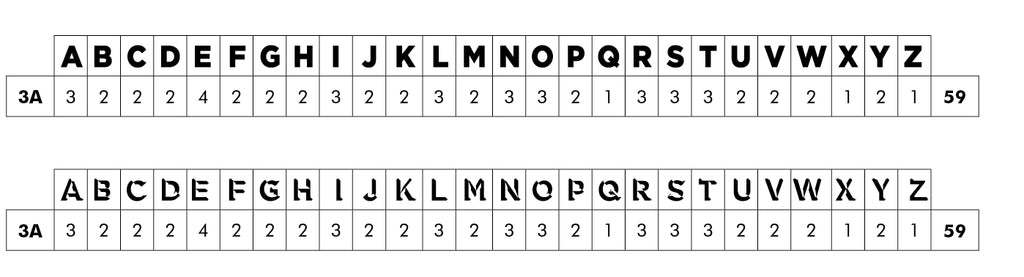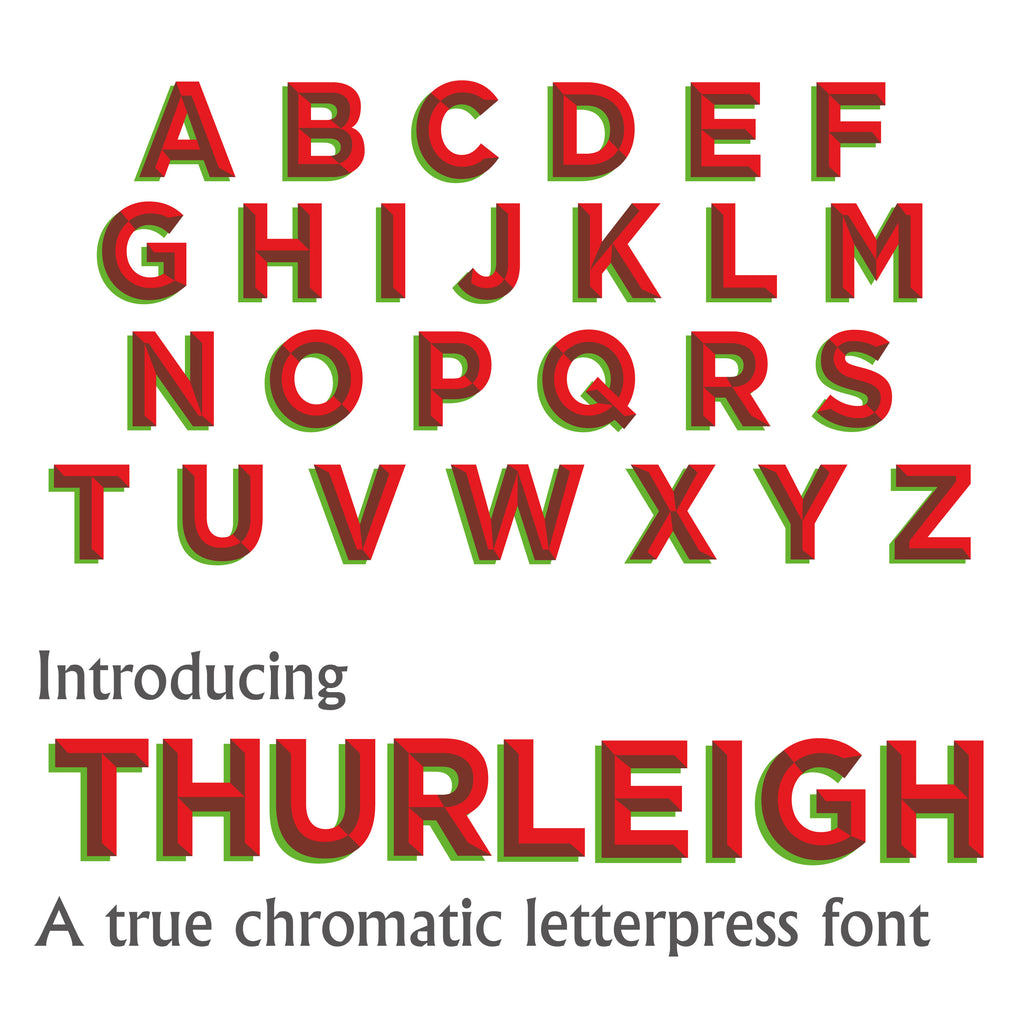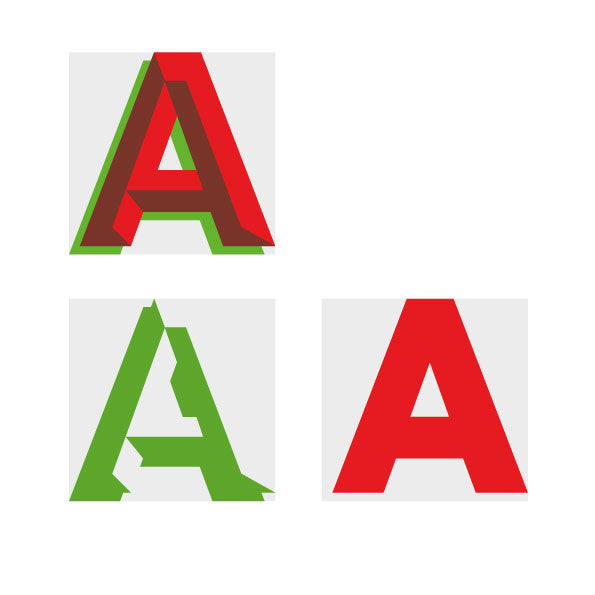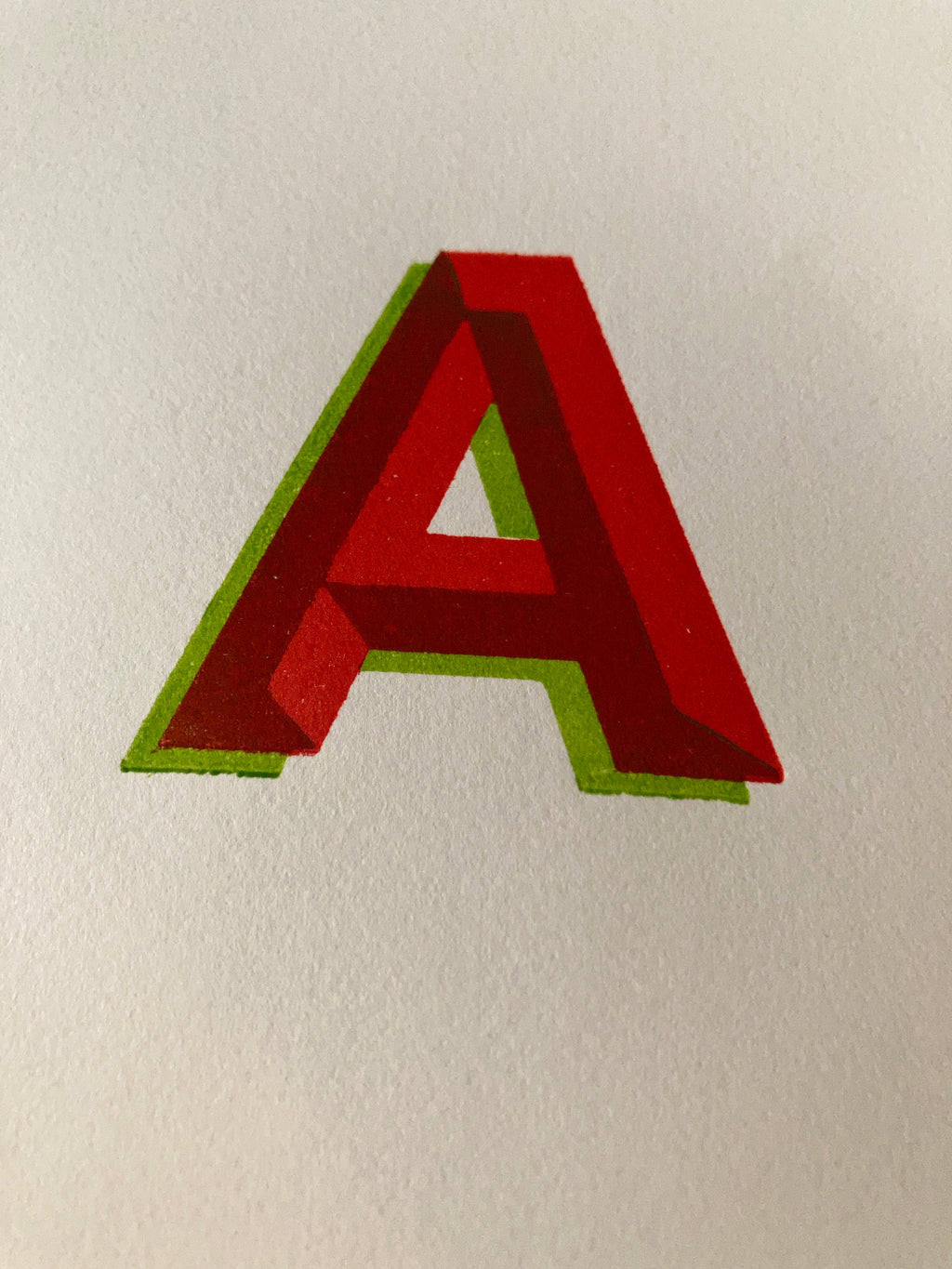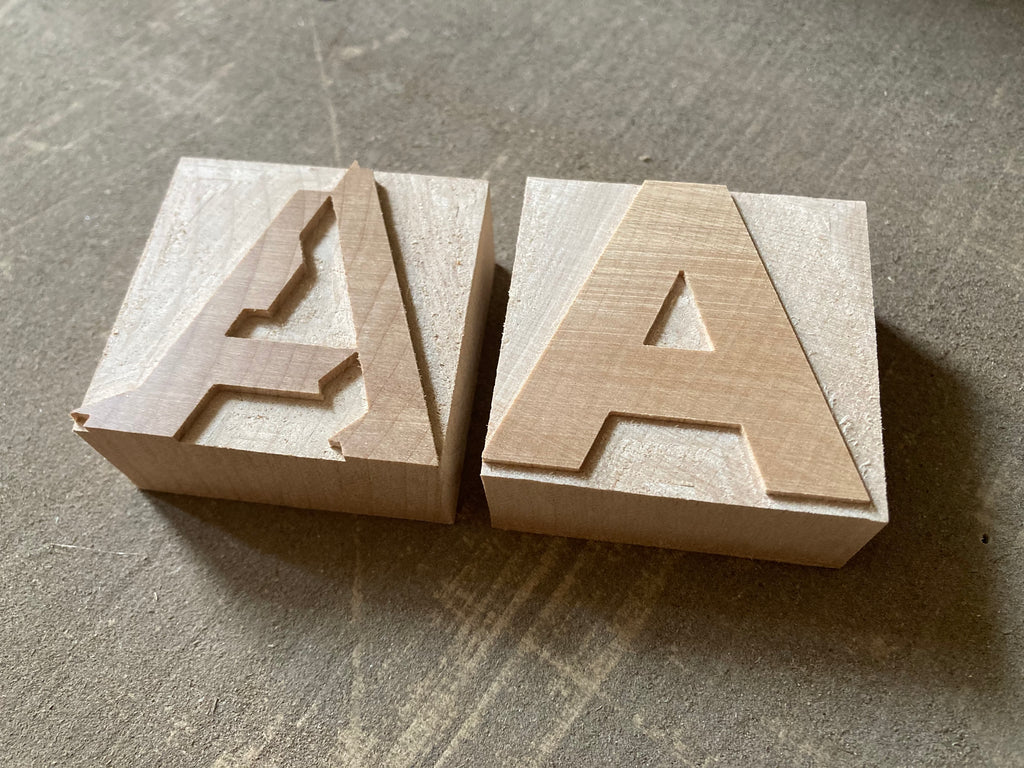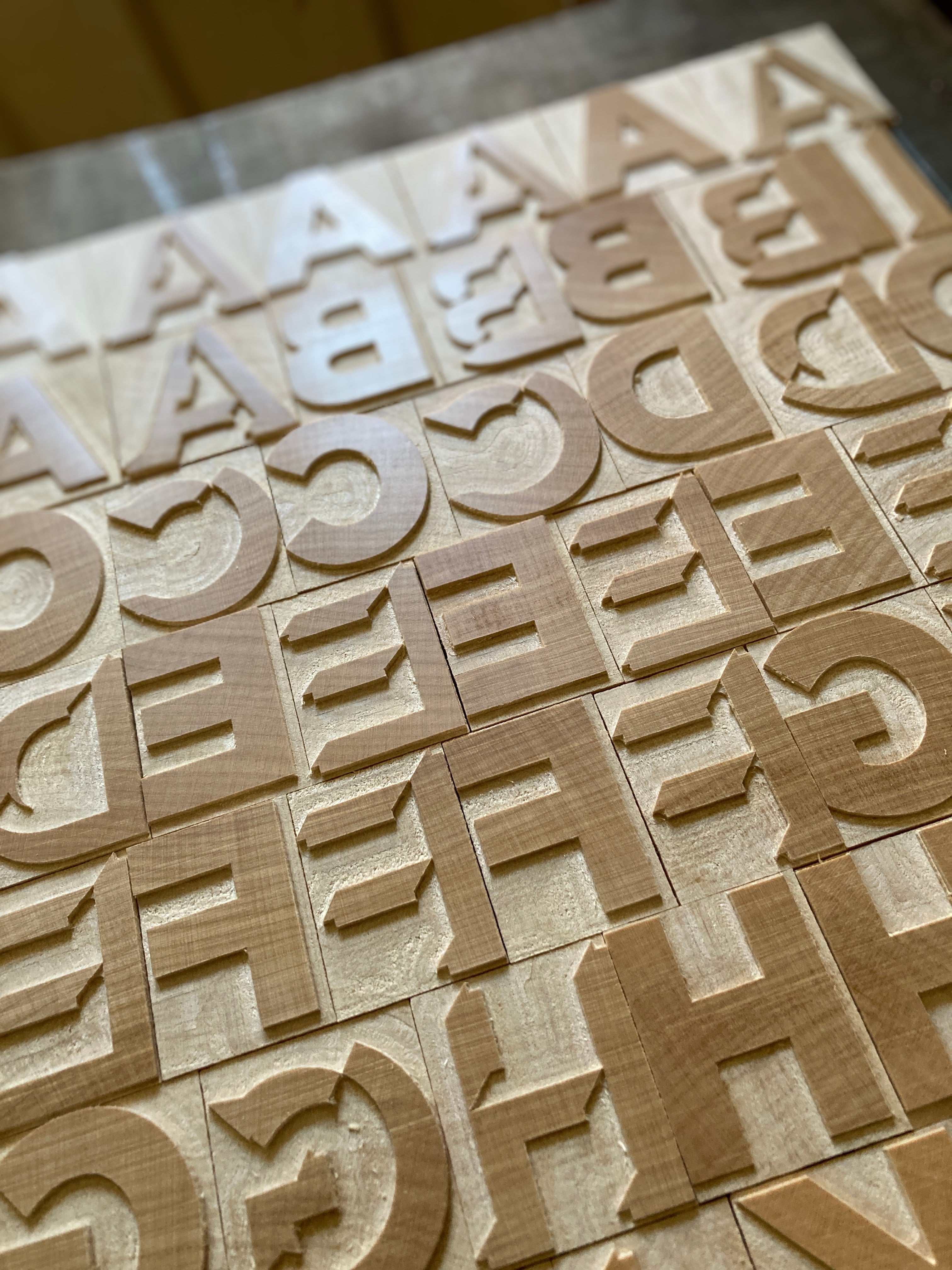
‘Thurleigh' 2 Colour, True Chromatic Letterpress woodtype typeface
Introducing 'Thurleigh' - a 2 colour, true chromatic letterpress font - print two colours to create a third colour.
Available in 10 line (42.3mm) cut from end grain English Sycamore hardwood using a combination of modern CNC technology and traditional hand woodworking tools (including an original printers saw), made to English type-high (0.918in or 23.3mm) within plus or minus 0.1mm tolerance, sealed with shellac and hand finished with a traditional polished printing surface.
Available as a 3A scheme - 118 blocks making up 59 letters. Please see scheme details on the left.
English Sycamore, clear shellac
Each block varies in width however average size is 42 x 23.3 x 42.3mm.